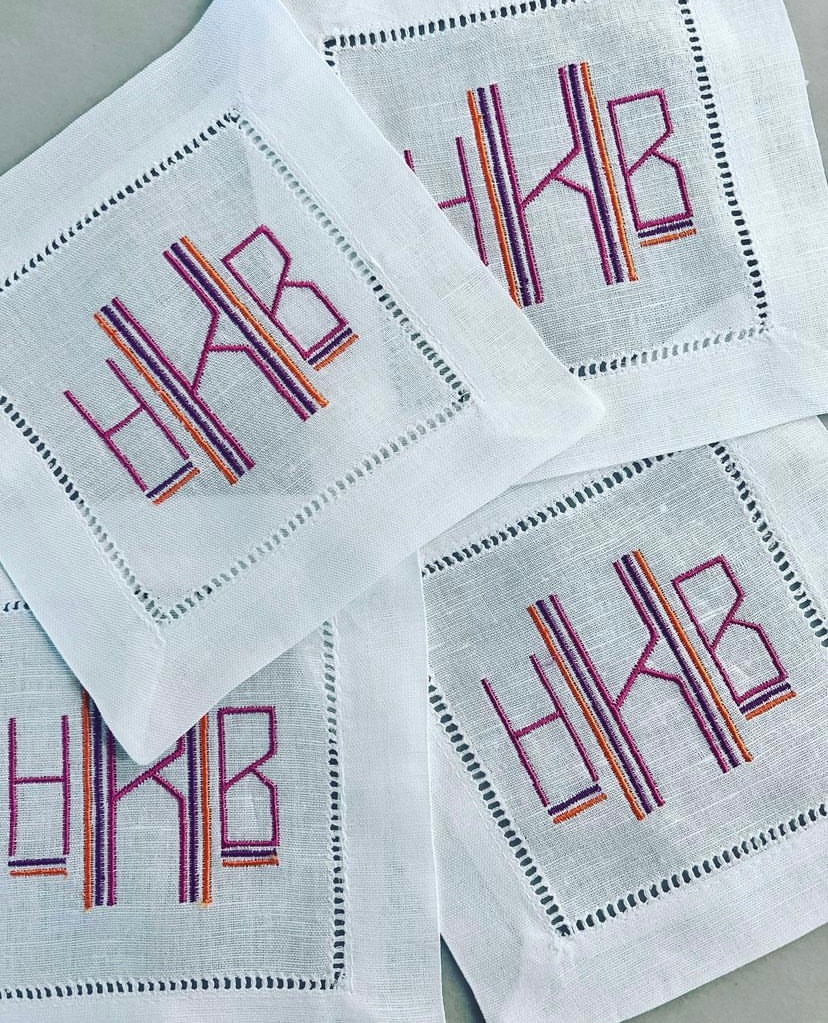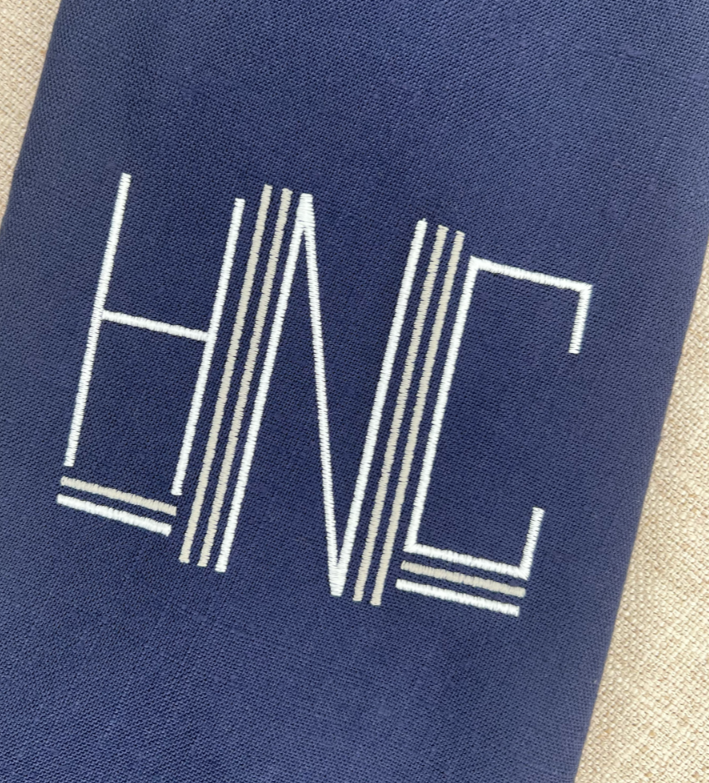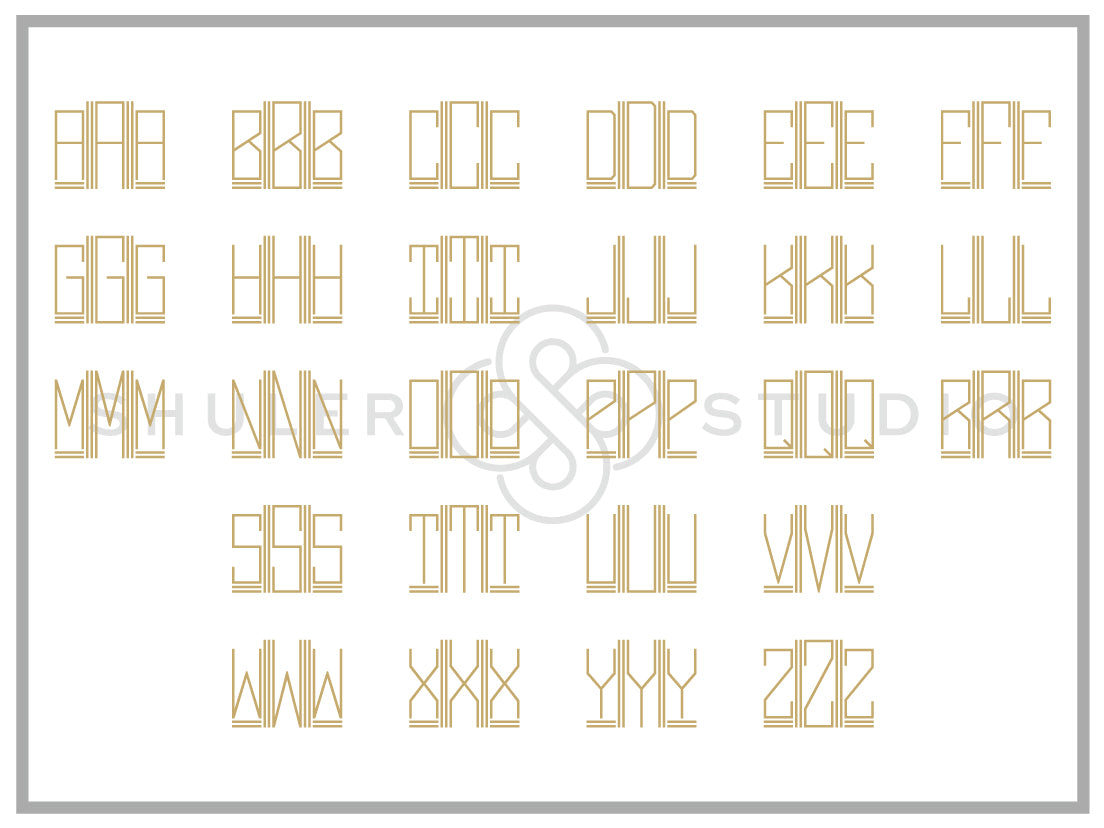
Monogram Edge Font for Embroidery
Monogram Edge is a striking and modern font featuring sleek line details. In 1-letter, 2-letter, 3-letter, or as text, this smart font is a versatile addition to your font repertoire.
The careful attention in the digitization of each design makes personalization unique and beautiful!